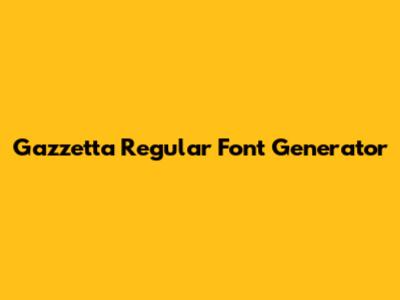
Hey guys! Ever stumbled upon a font that just screams style and sophistication? That’s Gazzetta Regular for you! This font has a certain je ne sais quoi that makes it super popular for all sorts of design projects. Whether you're diving into branding, crafting eye-catching headlines, or just jazzing up your social media, Gazzetta Regular can seriously elevate your game. But what if you need to generate text using this awesome font without having it installed on your system? That's where a Gazzetta Regular font generator comes in handy! These tools are like magic wands, transforming your plain text into visually stunning typography with just a few clicks. So, let's dive deep into the world of Gazzetta Regular and explore how these font generators can make your creative life a whole lot easier. We'll cover everything from what makes Gazzetta Regular so special to how you can use these generators to create some seriously cool text effects. Trust me; by the end of this article, you'll be a Gazzetta Regular font pro!
What Makes Gazzetta Regular So Special?
Okay, so what’s the big deal about Gazzetta Regular anyway? Great question! This font isn’t just another face in the crowd; it has some unique characteristics that make it stand out. First off, Gazzetta Regular boasts a clean, modern design. Its letterforms are well-balanced, making it incredibly readable and aesthetically pleasing. This makes it a fantastic choice for both print and digital projects. Seriously, whether it's on a website, a poster, or even a business card, Gazzetta Regular just works. But it's not just about looks. Gazzetta Regular also carries a sense of authority and professionalism. This is why you often see it used in branding materials for companies that want to project an image of reliability and competence. Think about it: a logo set in Gazzetta Regular instantly conveys a sense of trustworthiness. Moreover, Gazzetta Regular is versatile. You can use it for headlines, body text, and even captions. It pairs well with other fonts, giving you the flexibility to create dynamic and engaging designs. For example, try pairing it with a script font for a touch of elegance or a sans-serif font for a more modern look. The possibilities are endless! And let's not forget about its impact on readability. Gazzetta Regular is designed to be easy on the eyes, even when used in large blocks of text. This is crucial for ensuring that your message is clear and accessible to your audience. Nobody wants to squint and strain their eyes trying to read something, right? In short, Gazzetta Regular is special because it combines beauty, functionality, and versatility into one neat package. It's a font that can adapt to a wide range of design needs, making it a valuable asset for any creative project. So, next time you're looking for a font that can make a statement, remember Gazzetta Regular – it might just be the perfect fit!
How to Use a Gazzetta Regular Font Generator
Alright, let's get down to the nitty-gritty: How do you actually use a Gazzetta Regular font generator? Don't worry; it's super easy! These tools are designed to be user-friendly, so you don't need to be a design guru to get great results. First things first, you'll need to find a reliable Gazzetta Regular font generator. There are tons of options online, so do a quick search and pick one that looks trustworthy and easy to navigate. Once you've found a generator, the process is usually pretty straightforward. You'll typically see a text box where you can type in your desired text. This could be anything from a single word to a whole paragraph, depending on your needs. After you've entered your text, the generator will usually give you a preview of how it looks in Gazzetta Regular. This is a great way to get a sense of whether the font is working for your particular message. But here's where it gets really fun: Many Gazzetta Regular font generators offer customization options. You might be able to adjust the font size, color, and even add some cool effects like shadows or outlines. This allows you to create truly unique and eye-catching text that stands out from the crowd. Experiment with different settings to see what works best for your project. Don't be afraid to get creative and try new things! Once you're happy with your text, the generator will usually give you the option to download it as an image or copy the text in a format that you can paste into your design software. This makes it incredibly easy to incorporate your Gazzetta Regular text into your projects, even if you don't have the font installed on your computer. And that's it! With just a few simple steps, you can transform your text into stunning typography using a Gazzetta Regular font generator. So go ahead, give it a try and see what amazing things you can create!
Cool Text Effects You Can Create
Okay, now for the really exciting part: Let's talk about some cool text effects you can create using a Gazzetta Regular font generator! These generators aren't just about converting text; they're about unleashing your creativity and making your designs truly pop. One of the most popular effects is adding shadows to your text. A subtle shadow can give your text a sense of depth and dimension, making it stand out from the background. Experiment with different shadow colors and angles to achieve the perfect look. Another great effect is adding an outline to your text. This can be a fantastic way to make your text more visible, especially if it's placed on a busy background. Try using a contrasting color for the outline to really make it stand out. And don't forget about gradients! A gradient fill can add a touch of sophistication and visual interest to your text. You can use a gradient to create a smooth transition between two or more colors, giving your text a dynamic and eye-catching look. But the possibilities don't stop there. Many Gazzetta Regular font generators offer a range of other effects, such as reflections, glows, and even 3D effects. These can be a great way to add some serious wow factor to your designs. For example, a subtle glow can give your text a soft, ethereal look, while a 3D effect can make it appear as if it's jumping off the page. The key is to experiment and find the effects that work best for your particular project. Don't be afraid to try new things and push the boundaries of what's possible. With a little creativity, you can create some truly stunning text effects that will impress your audience and elevate your designs to the next level. So go ahead, unleash your inner artist and see what amazing things you can create with a Gazzetta Regular font generator!
Where to Find the Best Gazzetta Regular Font Generators
Alright, so you're sold on the idea of using a Gazzetta Regular font generator, but where do you actually find the best ones? Great question! With so many options available online, it can be tough to know where to start. But don't worry; I've got you covered. First off, a simple Google search is always a good starting point. Just type in "Gazzetta Regular font generator," and you'll be presented with a ton of options. But be careful! Not all font generators are created equal. Some may be outdated, buggy, or even contain malware. So, how do you separate the wheat from the chaff? One thing to look for is user reviews. See what other designers and creatives are saying about the generator. If it has a lot of positive reviews, it's probably a safe bet. Another thing to consider is the generator's features. Does it offer a wide range of customization options? Can you adjust the font size, color, and add effects like shadows and outlines? The more features a generator has, the more flexibility you'll have to create unique and eye-catching text. It's also important to make sure that the generator is easy to use. A clunky, confusing interface can be a major turnoff. Look for a generator that is intuitive and straightforward, so you can focus on creating great designs without getting bogged down in technical details. Some popular online font generators that often include Gazzetta Regular or similar styles include Fontstruct, Fontastic, and various online text effect websites. These platforms usually offer a user-friendly interface and a range of customization options. Finally, don't be afraid to try out a few different generators before settling on one. Most generators are free to use, so you can experiment and see which one works best for your needs. So go ahead, do your research, and find the perfect Gazzetta Regular font generator for your next project. With the right tool in hand, you'll be able to create stunning typography that will impress your audience and elevate your designs to the next level!
Tips for Using Generated Text Effectively
Okay, you've generated some awesome Gazzetta Regular text – now what? How do you actually use it effectively in your designs? Here are a few tips to help you make the most of your generated text. First and foremost, consider your audience. Who are you trying to reach with your design? What message are you trying to convey? Your text should be tailored to your audience's interests and needs. If you're designing a website for a tech company, for example, you might want to use a more modern and minimalist style. On the other hand, if you're designing a poster for a vintage-themed event, you might want to use a more ornate and decorative style. Another important tip is to pay attention to readability. Your text should be easy to read and understand, even at a glance. Use a font size that is appropriate for the context, and make sure there is enough contrast between the text and the background. Avoid using overly complex or decorative fonts, as these can be difficult to read. Think about the overall composition of your design. Your text should be well-integrated with the other elements on the page, such as images, illustrations, and graphics. Use whitespace to create visual balance and hierarchy, and make sure your text doesn't clash with the other elements. Also, don't be afraid to experiment with different text effects. A subtle shadow or outline can add depth and dimension to your text, while a gradient fill can add a touch of visual interest. Just be careful not to overdo it! Too many effects can make your text look cluttered and overwhelming. Remember, less is often more. Finally, always proofread your text carefully before publishing or printing your design. Typos and grammatical errors can undermine your credibility and make your design look unprofessional. So take the time to double-check your work and make sure everything is perfect. By following these tips, you can ensure that your generated Gazzetta Regular text is used effectively in your designs, helping you to communicate your message clearly and effectively. So go ahead, put these tips into practice and see what amazing things you can create!